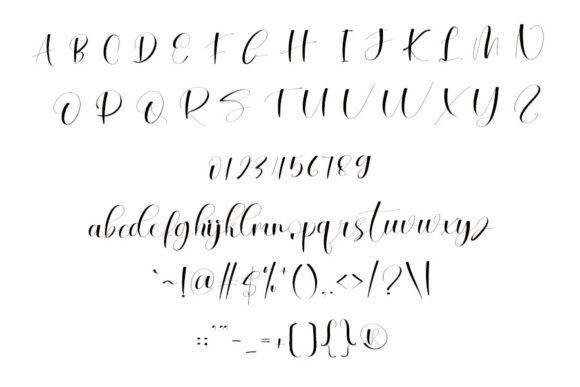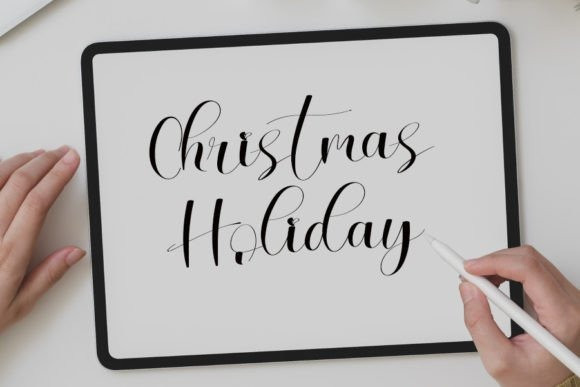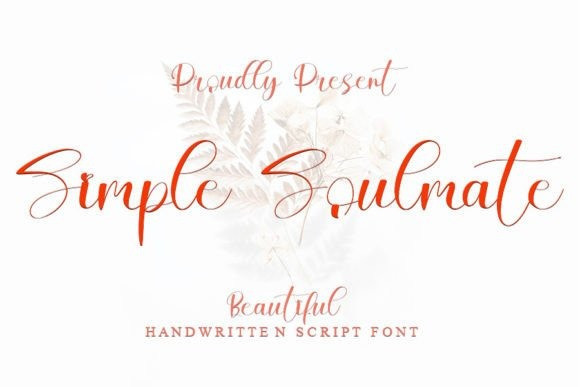
Simple Soulmate Font
Simple Soulmate Font is an enchanting handwritten font. This versatile script font has a wide spectrum of applications ranging from greeting cards to headlines and is guaranteed to add a romantic feel to your next project.